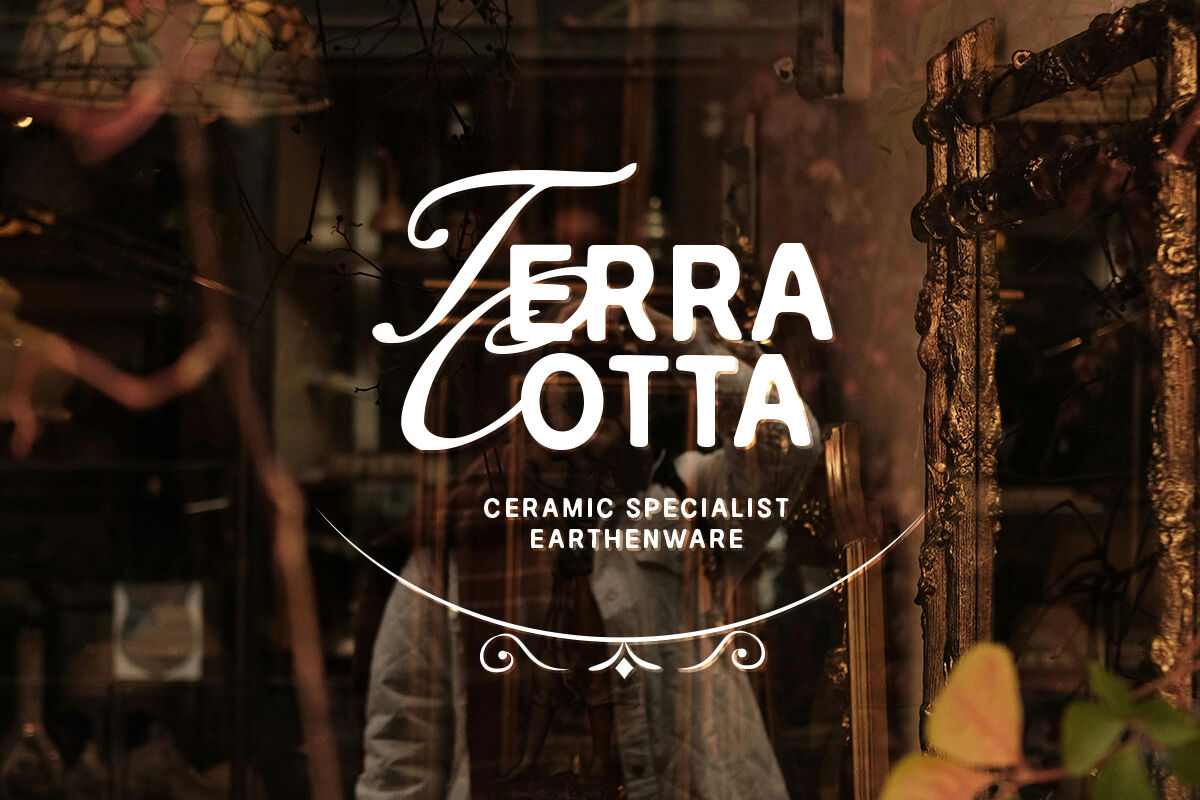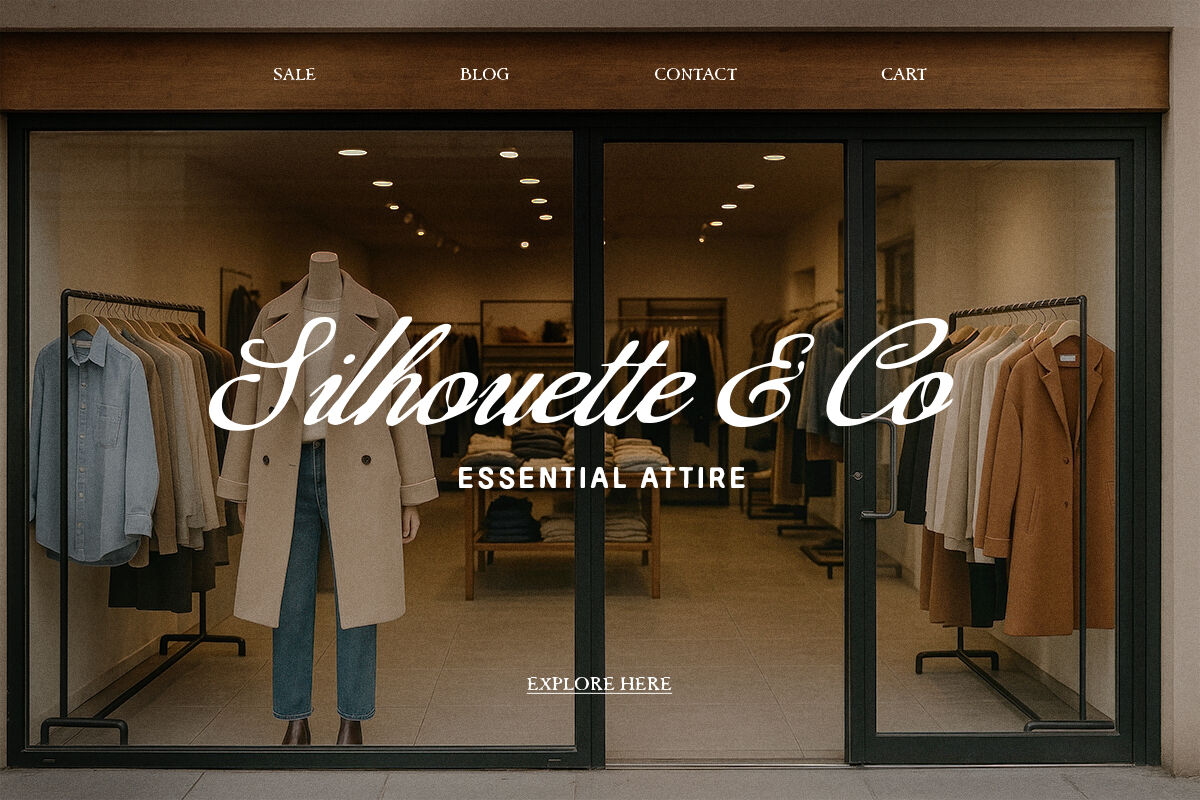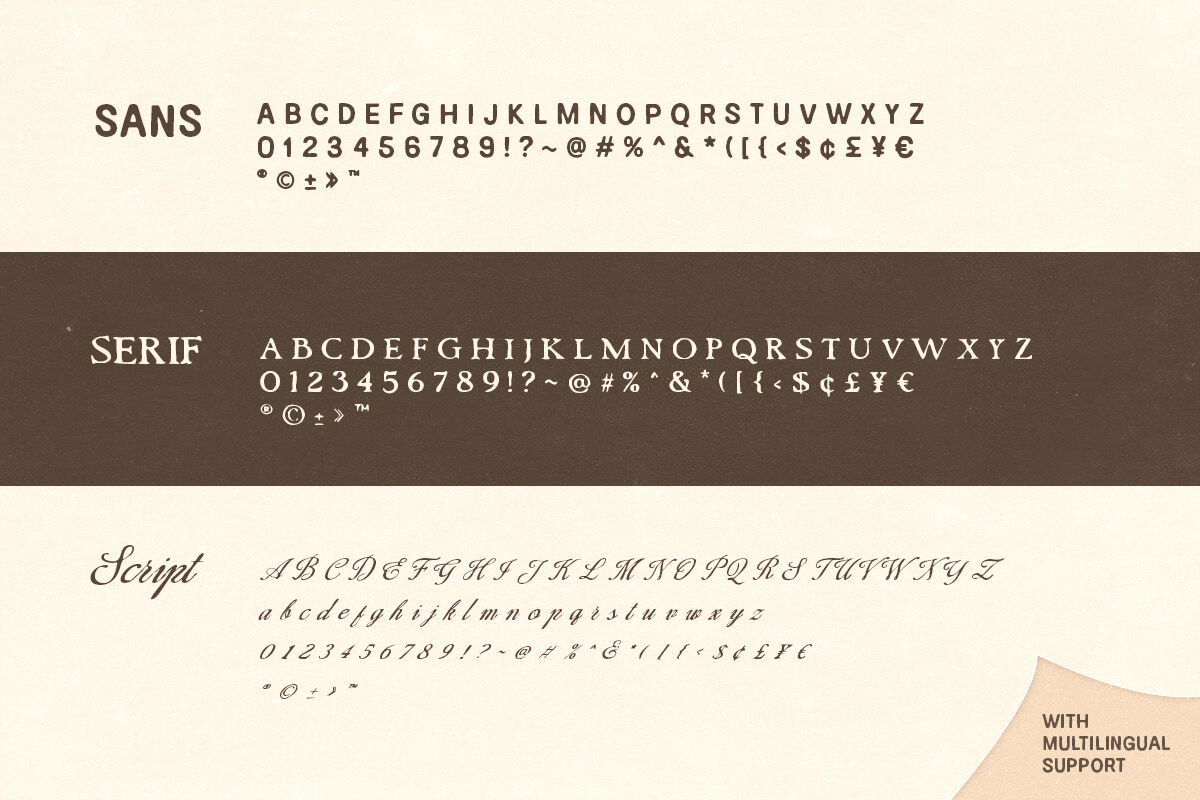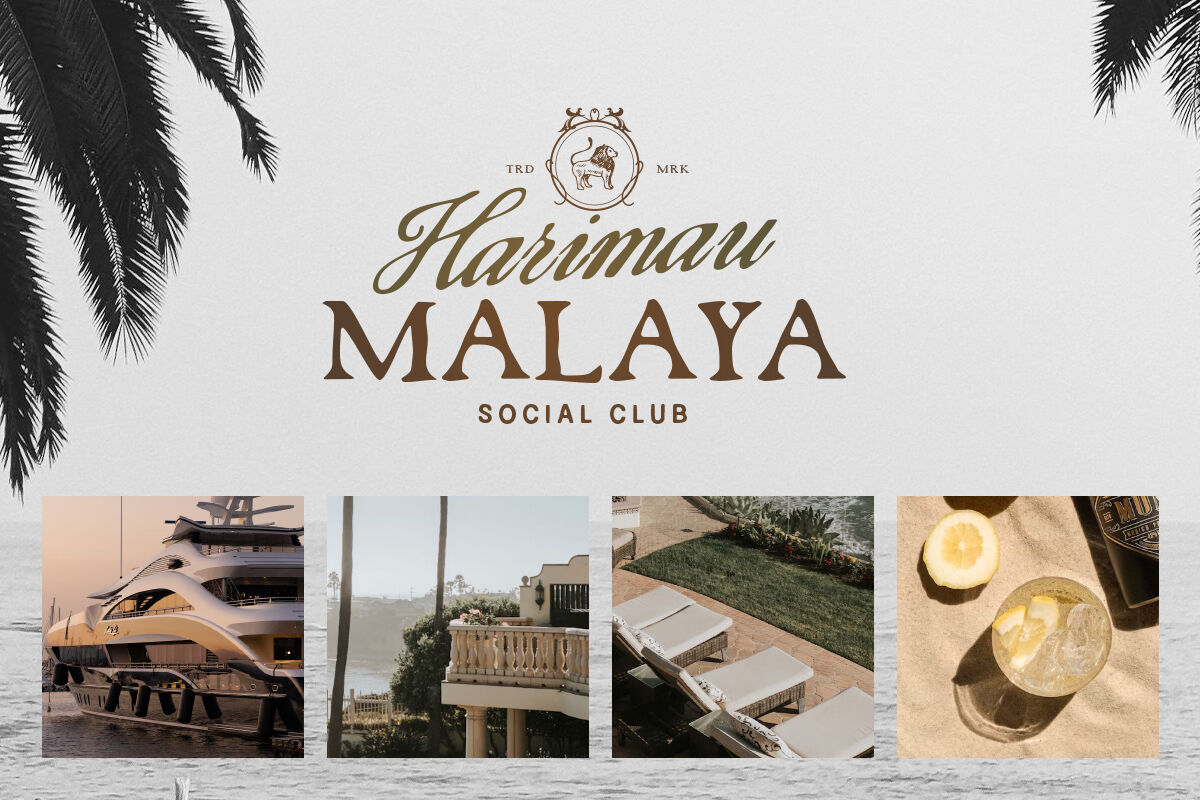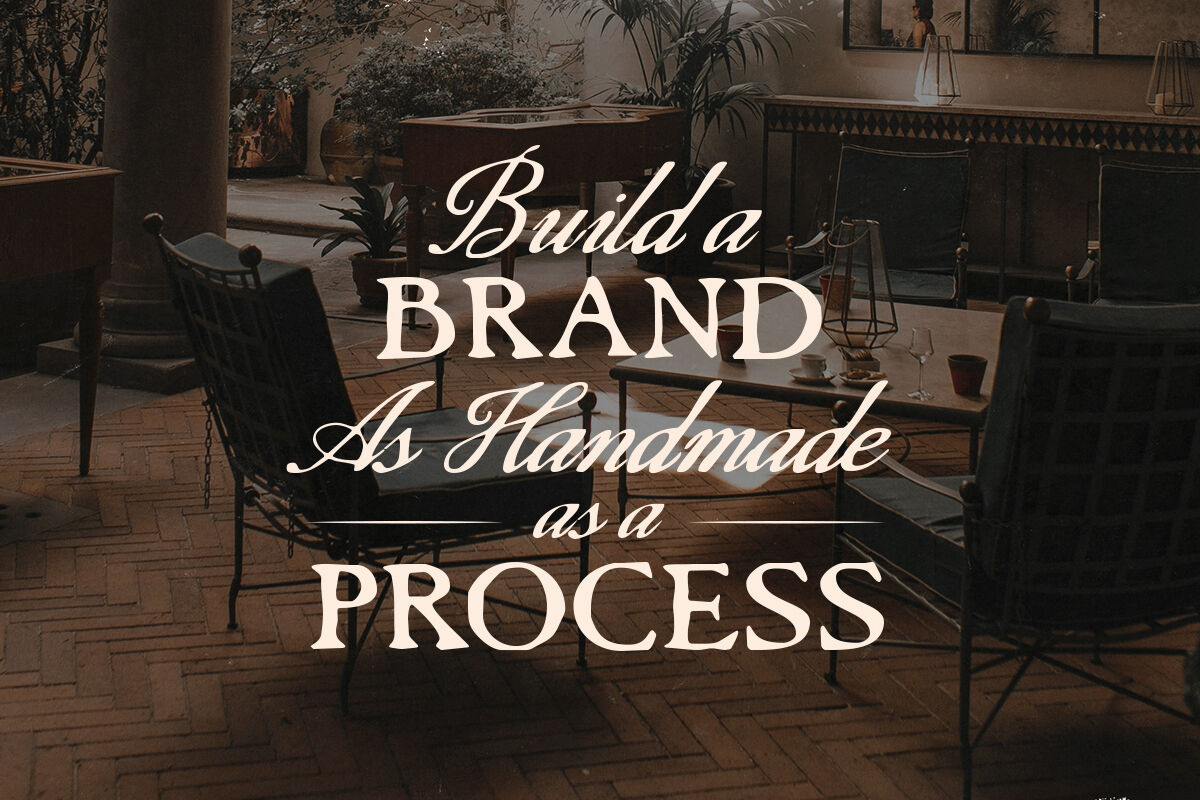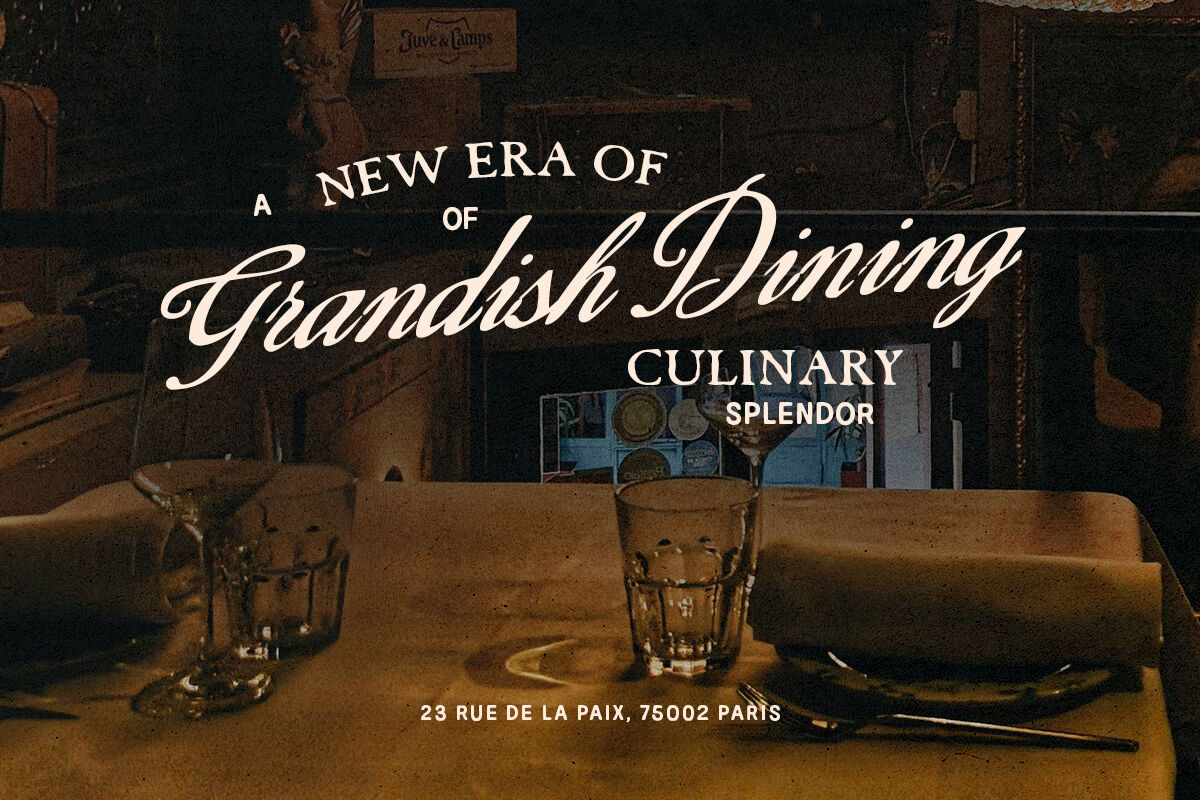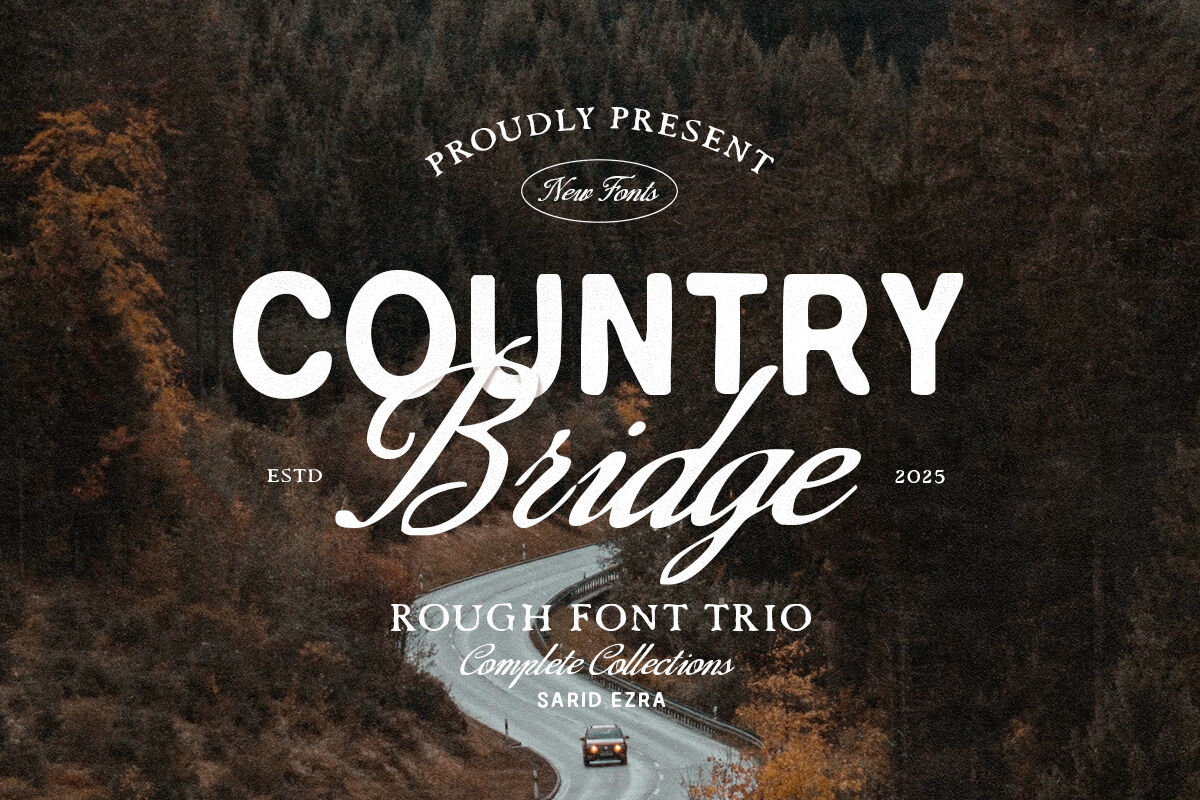
Country Bridge - Rough Font Trio
Introducing Country Bridge — a Rough Font Trio with a vintage and organic style. Country Bridge is a versatile font collection that brings together three styles fonts that compliment each other. This trio supports multilingual characters, numbers, and symbols, making it practical as well as beautiful. Perfect for logotypes, branding, wedding invitations, and quotes, Country Bridge saves you the trouble of font pairing — the three styles are designed to work seamlessly together. If you love our Royale Couture font, this is the rough version that you can use if you need the handmade and natural looks!
Country Bridge Sans
Country Bridge Script